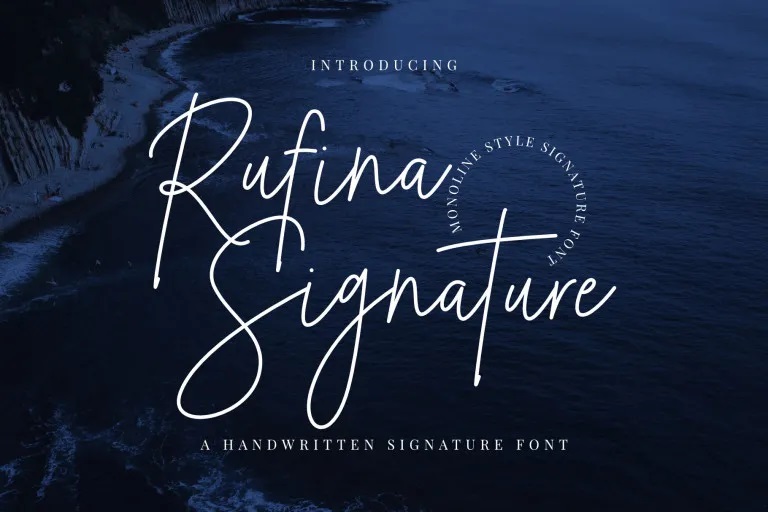
Rufina Signature Font
Rufina Signature Font exhibits a sophisticated yet legible monoline script style well-suited for perfecting designs. Its understated elegance leaves an impression without distracting from content. Short phrases spring to life while balanced claws maintain fluency over longer passages. Subtle connections between letters produce harmony on each line while preserving readability at smaller sizes.
Rufina Signature Script Font